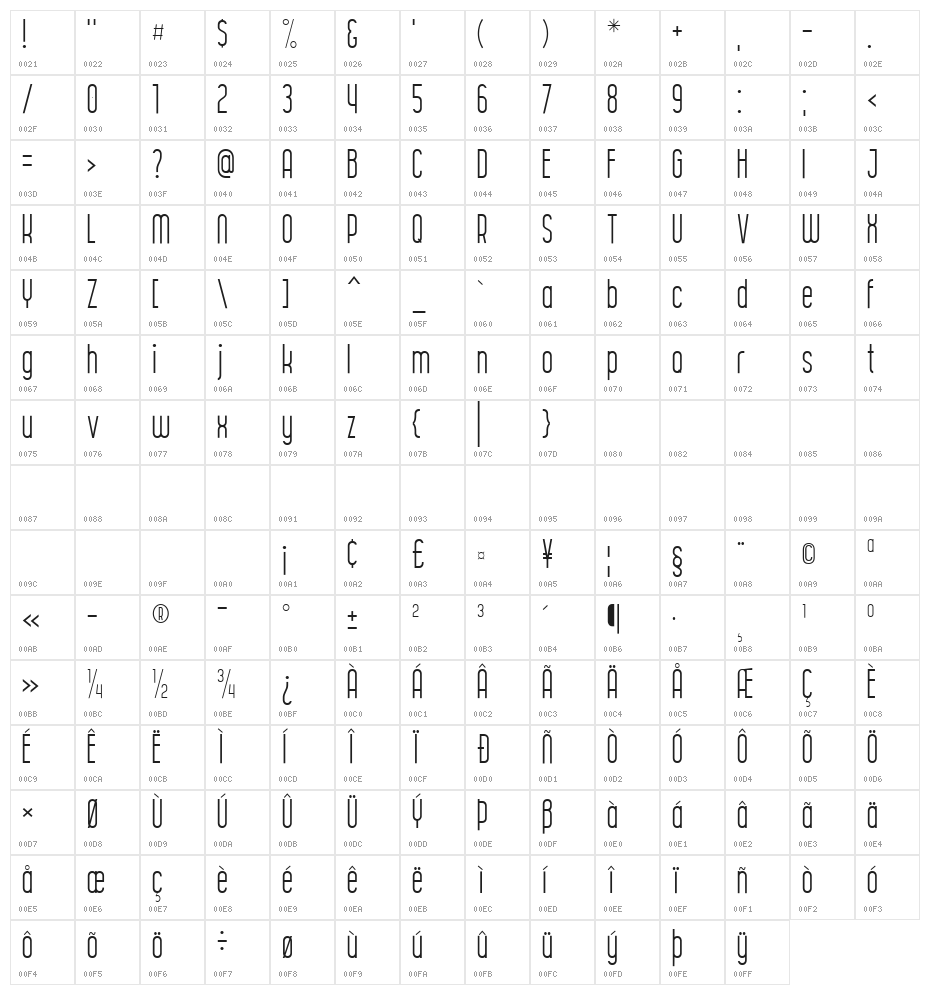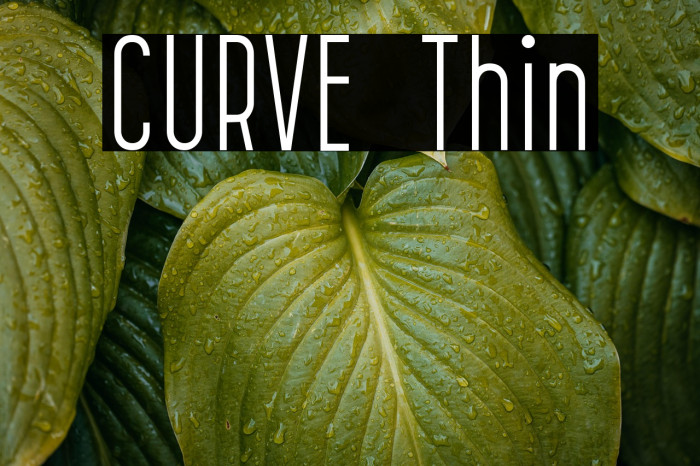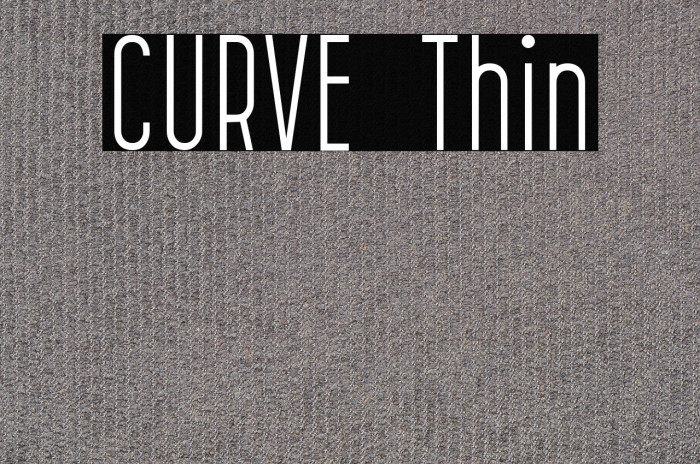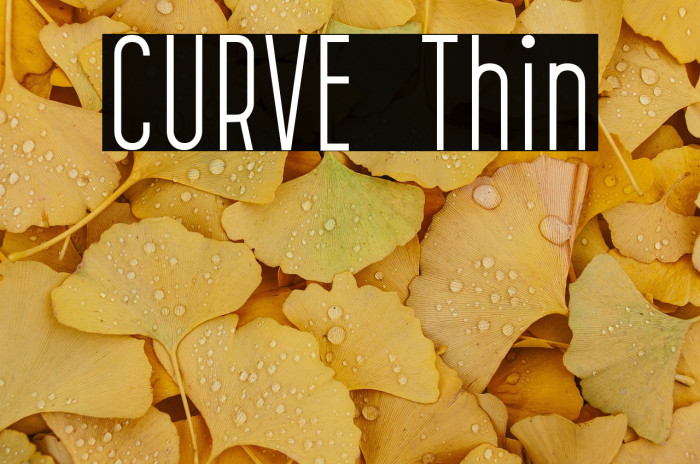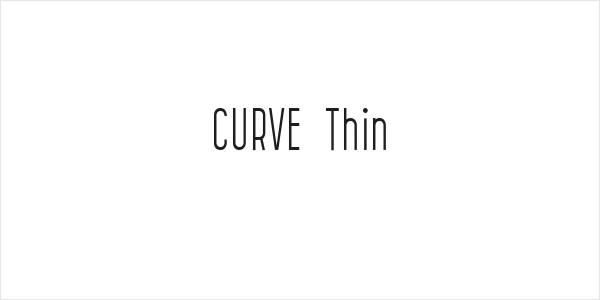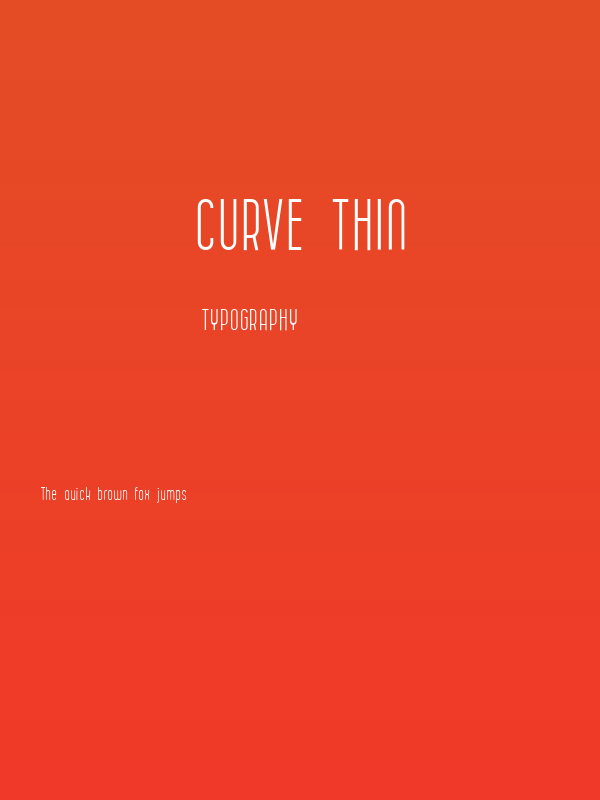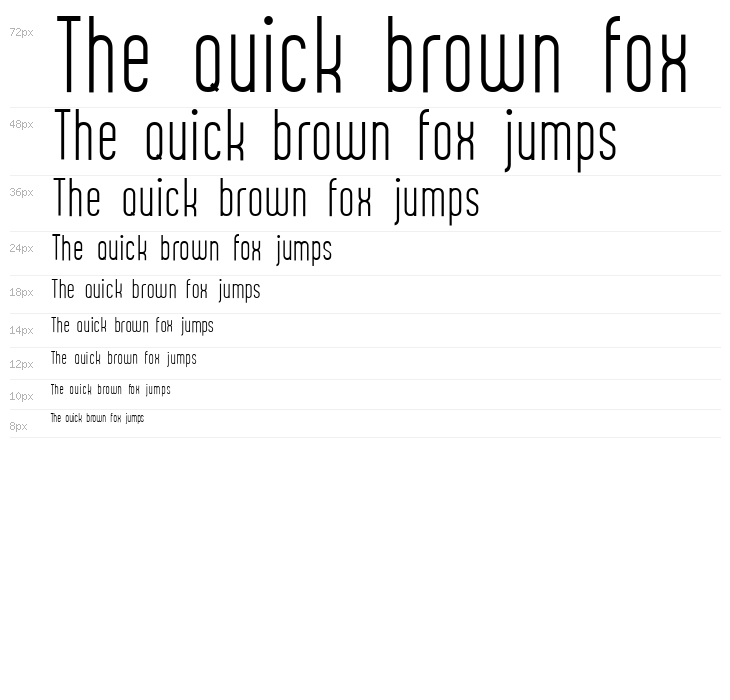
CURVE Thin Font
CURVE Thin Description
This font features a sleek, modern design with elongated, narrow characters that convey a sense of elegance and sophistication. The thin strokes are consistent throughout, giving it a clean and minimalist appearance. The uppercase and lowercase letters maintain a uniform height, enhancing readability while preserving a stylish aesthetic. The numerals and special characters are crafted with the same attention to detail, ensuring a cohesive look across all text elements. Its geometric structure and smooth curves make it suitable for contemporary design projects.
| Proposed Projects | Ideal for fashion magazines, luxury branding, minimalist posters, and modern web design. |